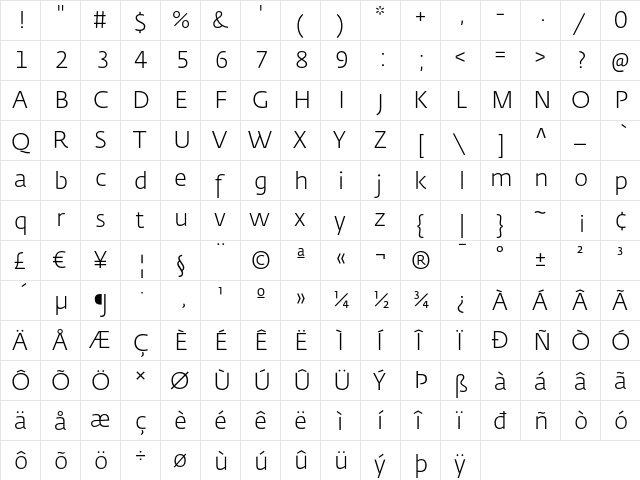
Fedra Sans Light TF
Design Context for Fedra Sans Typeface
Fedra Sans takes a measured approach to typography — its balanced proportions and neutral character make it a reliable workhorse for both digital and print work. Its slender proportions lend an understated elegance to any composition.